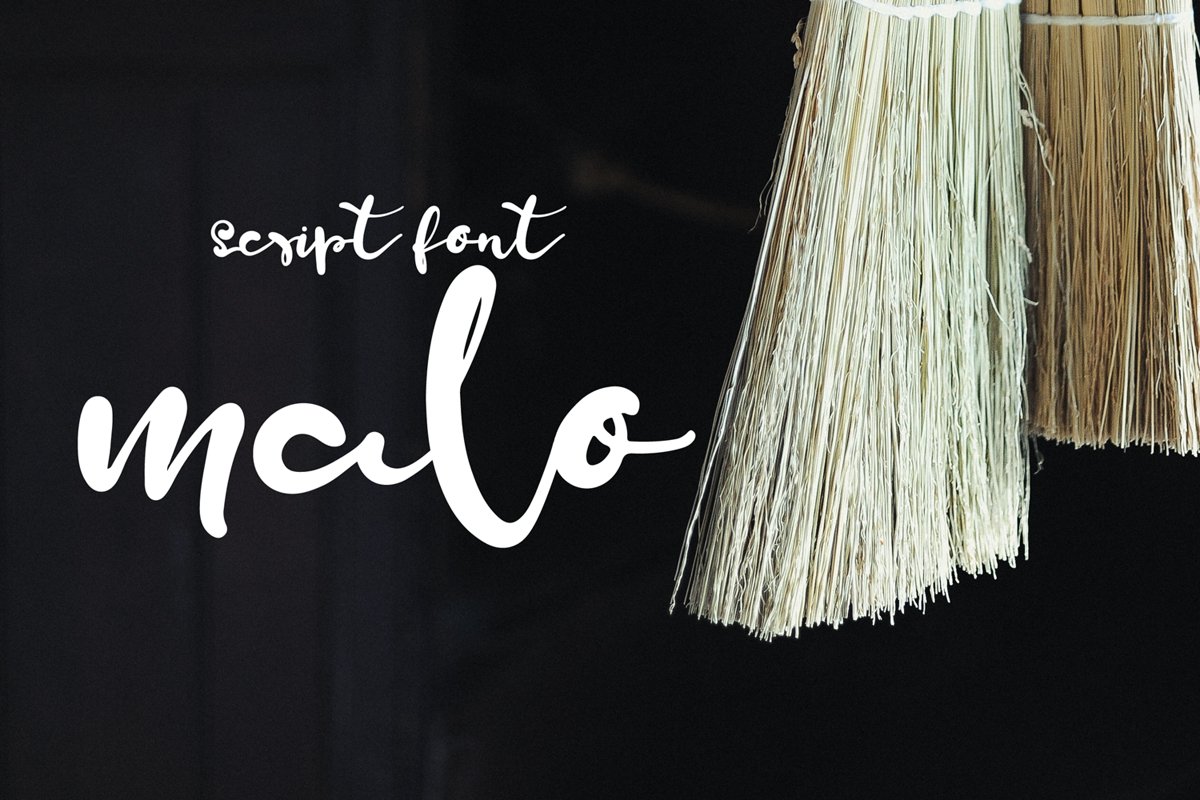
malo
Malo! I’m thrilled to introduce the newest addition to my shop, a fresh script font inspired by the breathtaking beauty of Samoa and the warmth of my friends there. Named simply "Malo," this font embodies a sense of elegance and flow, reminiscent of a brush dancing across a canvas.
Hand lettered and perfectly kerned, "Malo" offers a unique aesthetic that breathes life into your projects, whether you're crafting invitations or designing stunning graphics. I’ve added subtle variations for double letters, ensuring that every typed word feels dynamic and artistic, providing an intriguing visual journey with each stroke.